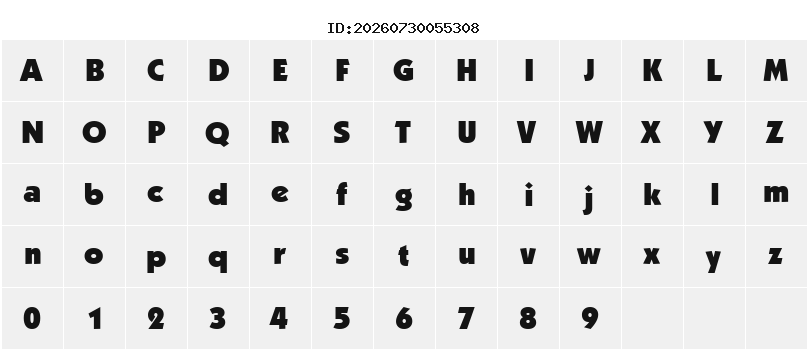
• Font Name: Kabel Ult BT
• Font Style: Ultra
• Font ID: ITC Kabel Ultra, Geometric 731
• Full Font Name: Kabel Ultra BT
• PostScript Name: KabelITCbyBT-Ultra
About Kabel Ult BT.ttf
Kabel Ult BT.ttf is a modern, elegant sans-serif font designed for ultimate readability and visual harmony. Perfect for branding, headlines, web design, and print materials.